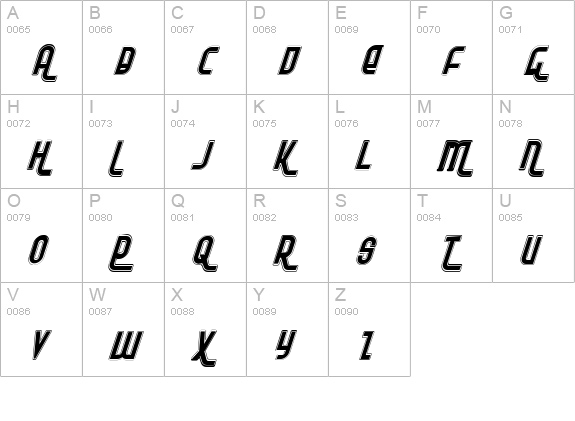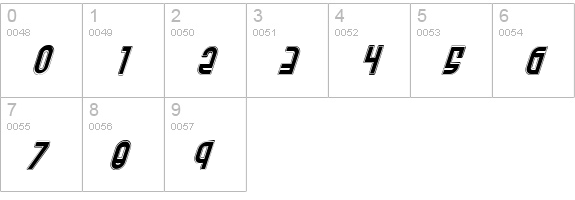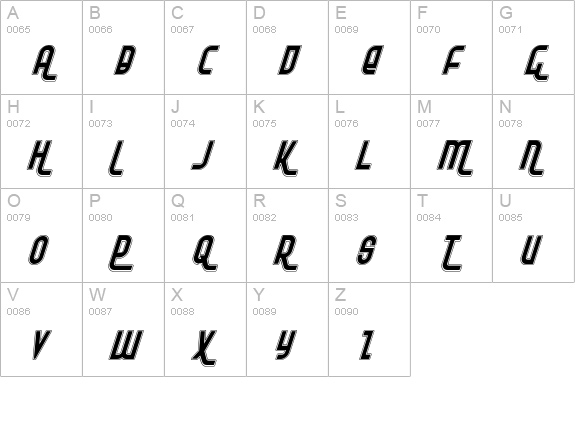
Ro'Ki'Kier Pro Italic is a distinctive, italic variant in the Ro'Ki'Kier typeface family \xE2\x80\x94 well suited to design and typography projects.
Ro'Ki'Kier Pro Italic is a sleek and modern font that exudes elegance and sophistication. Its graceful curves and stylish design make it perfect for a wide range of projects, from branding to promotional materials. The italic style adds a touch of flair and creativity to any text, making it stand out and capture attention. What sets Ro'Ki'Kier Pro Italic apart is not only its stunning appearance but also the fact that it is available for free download at FontsMarket.com. This means that you can access this high-quality font without any cost, allowing you to enhance your designs without breaking the bank. Whether you are working on a website, a logo, a poster, or any other project that requires a touch of elegance, Ro'Ki'Kier Pro Italic is sure to impress. Download it today for free and elevate your designs to the next level.